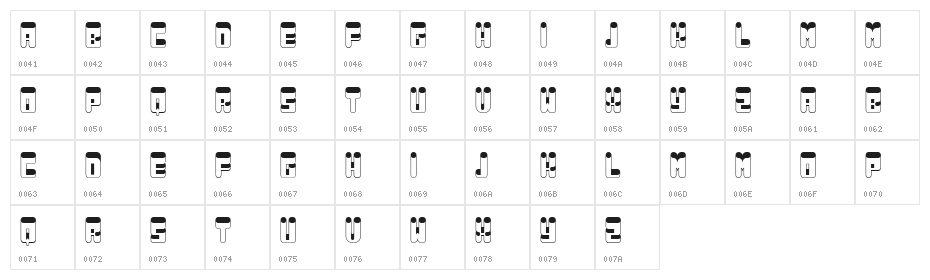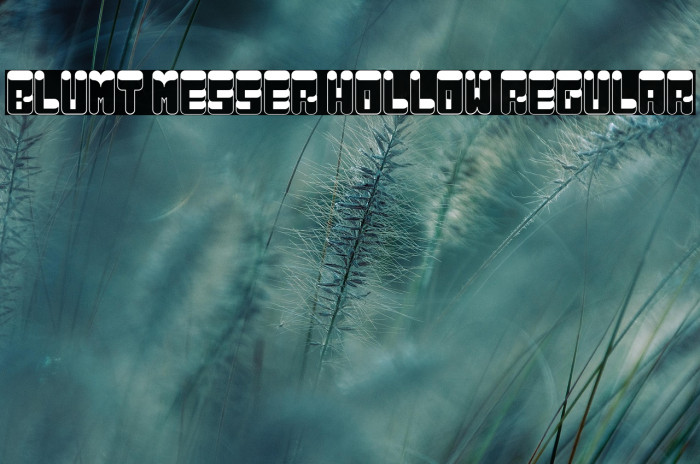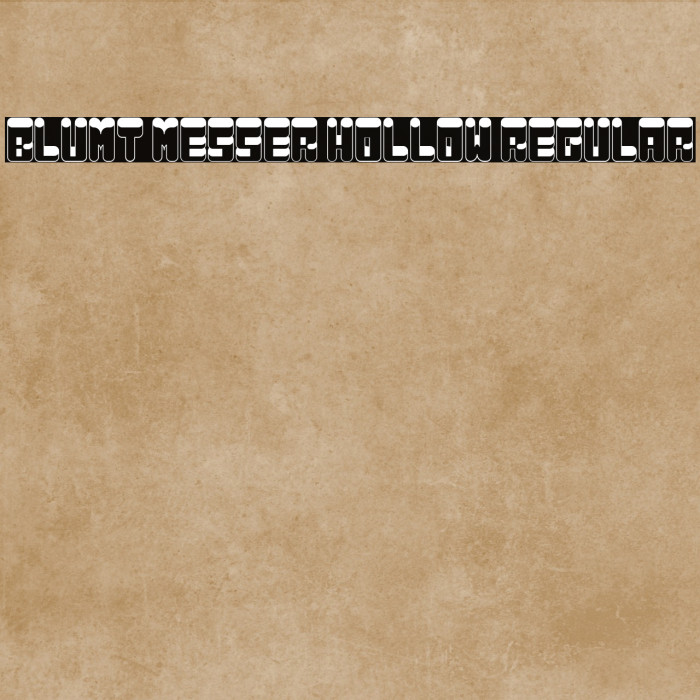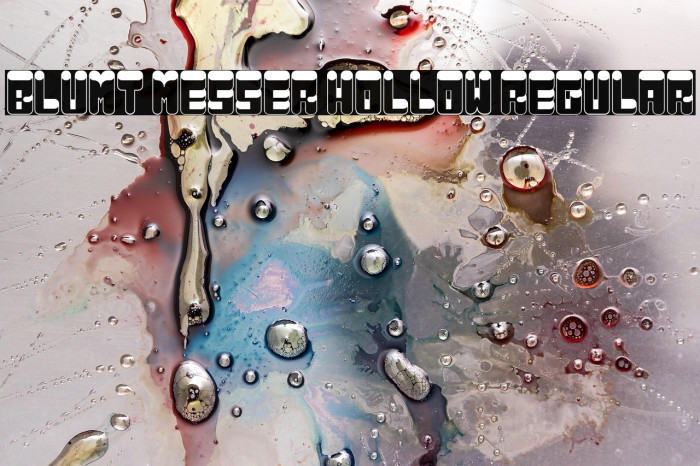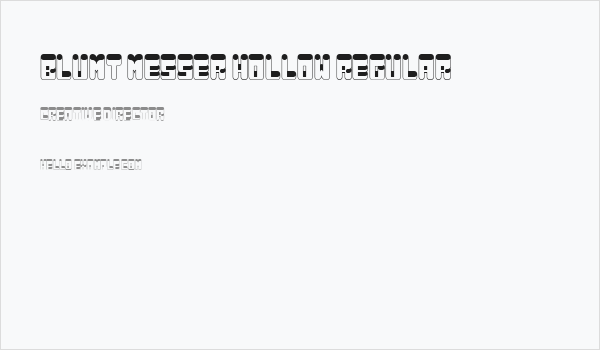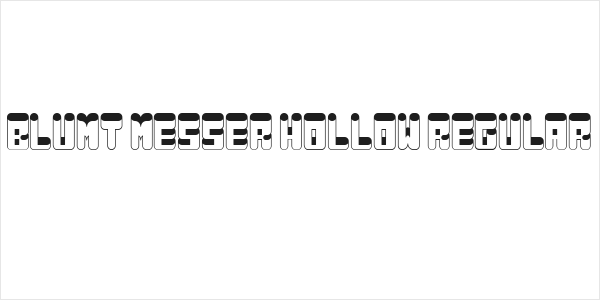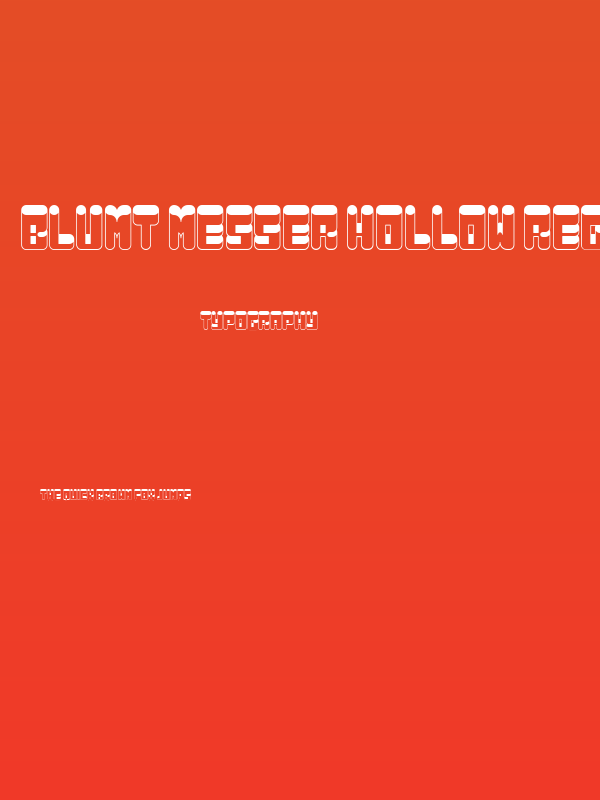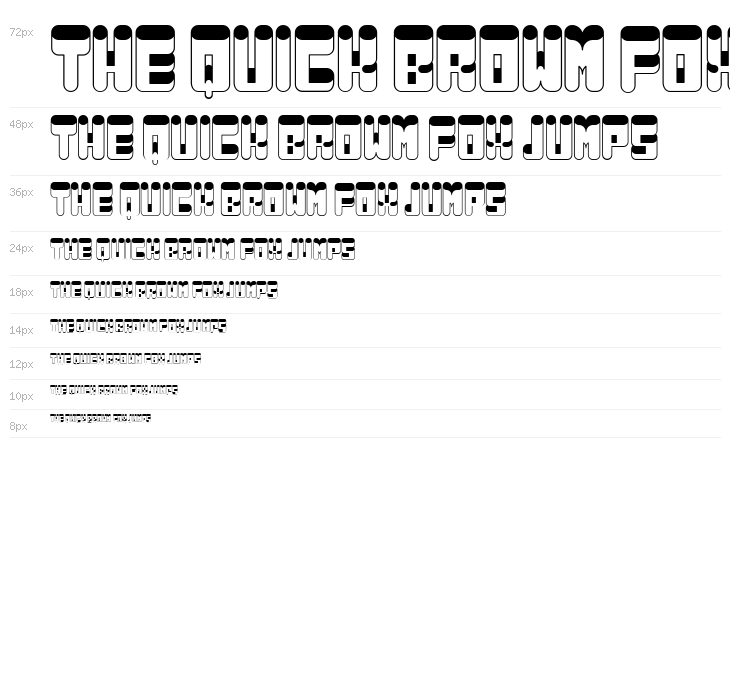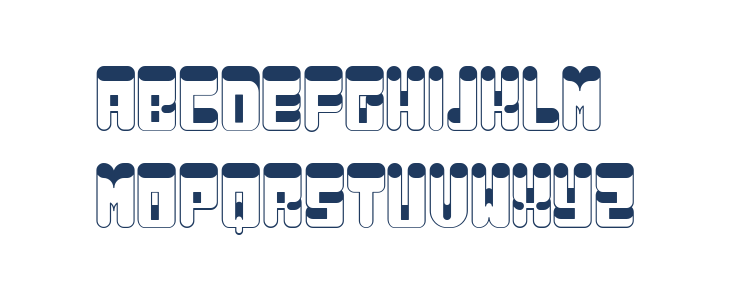
Blunt Messer Hollow Regular Font
Blunt Messer Hollow Regular Description
This font features a bold, hollow design with a distinct retro-futuristic aesthetic. The characters are uppercase with a consistent, rounded shape that gives them a playful yet structured appearance. The hollow centers add a unique depth, making the letters stand out with a three-dimensional effect. The strokes are thick and uniform, contributing to a strong visual impact. The overall style is reminiscent of vintage arcade games or retro sci-fi themes, making it ideal for projects that require a bold and eye-catching typeface.
| Overall Style | Retro-Futuristic |
| Proposed Projects | Ideal for retro-themed posters, video game titles, sci-fi book covers, and branding that requires a vintage yet modern look. |